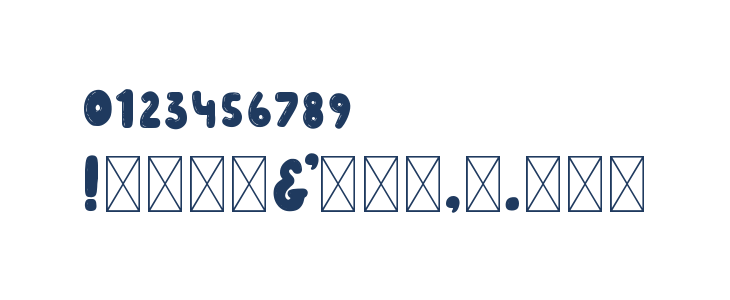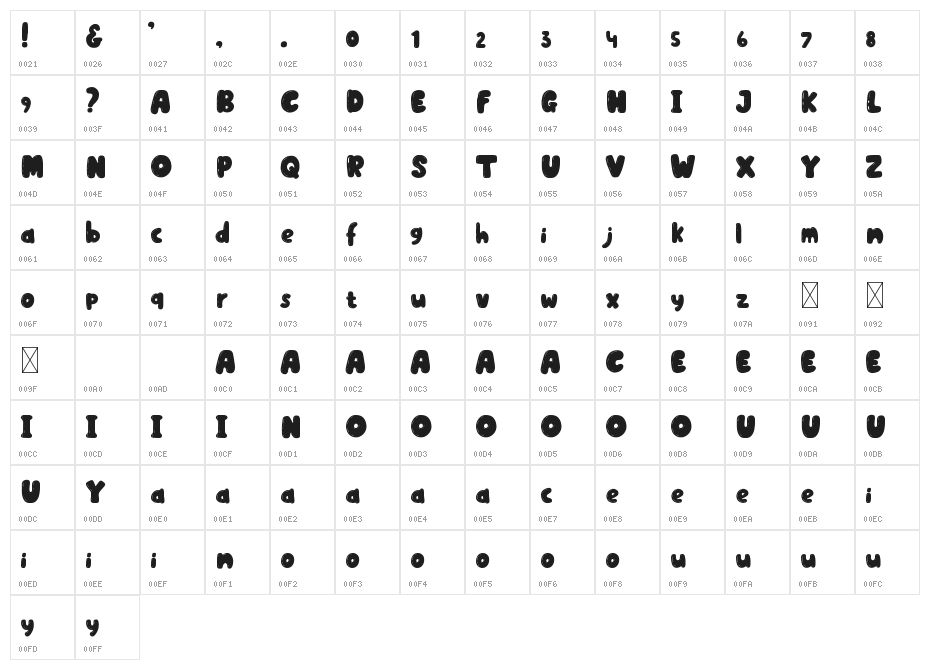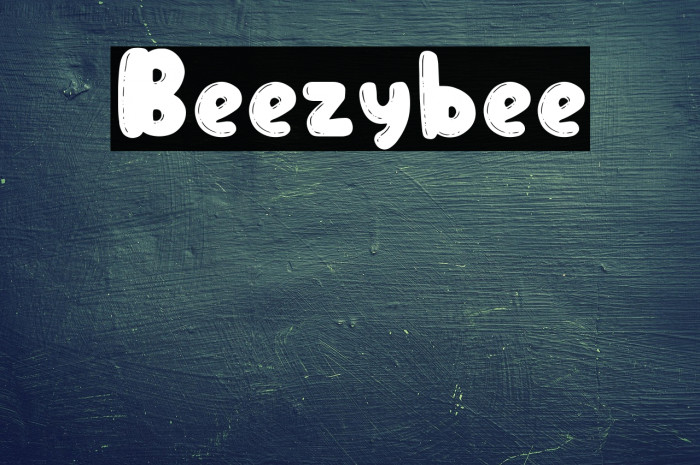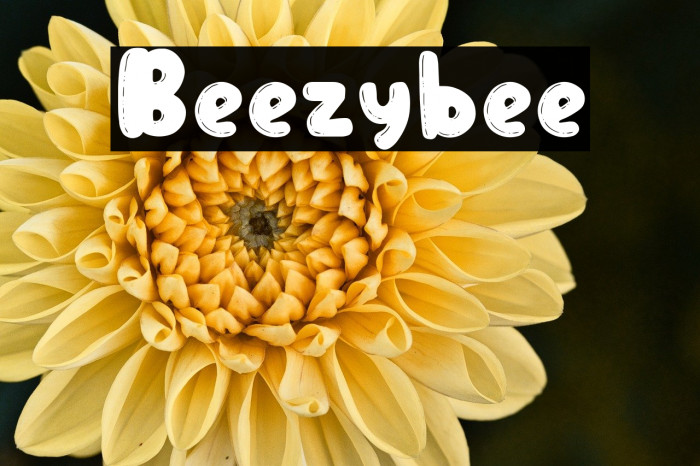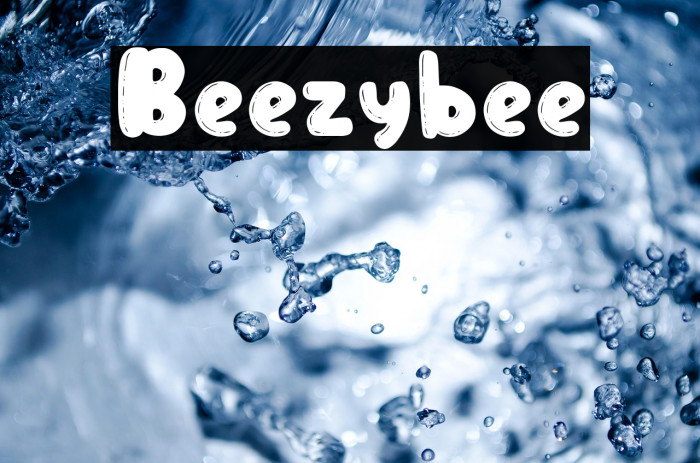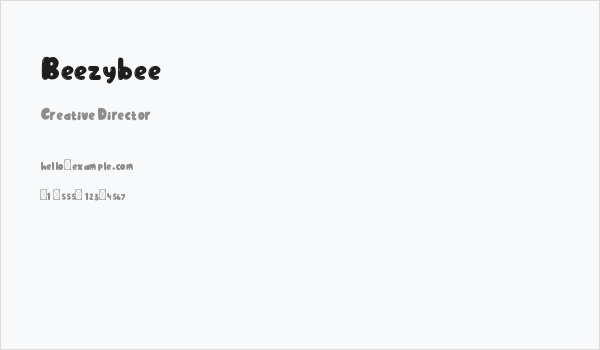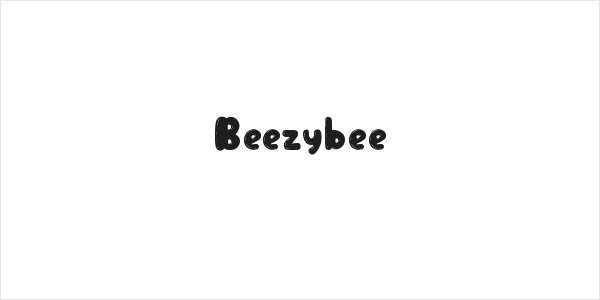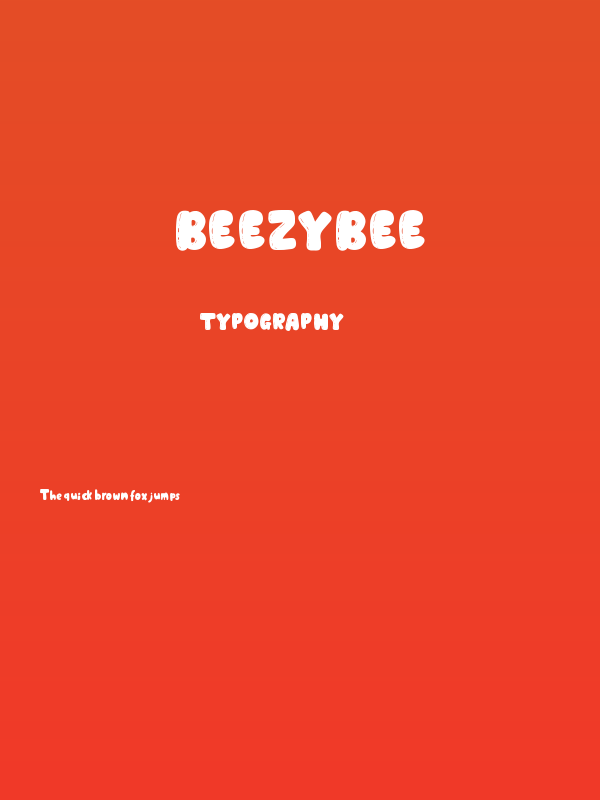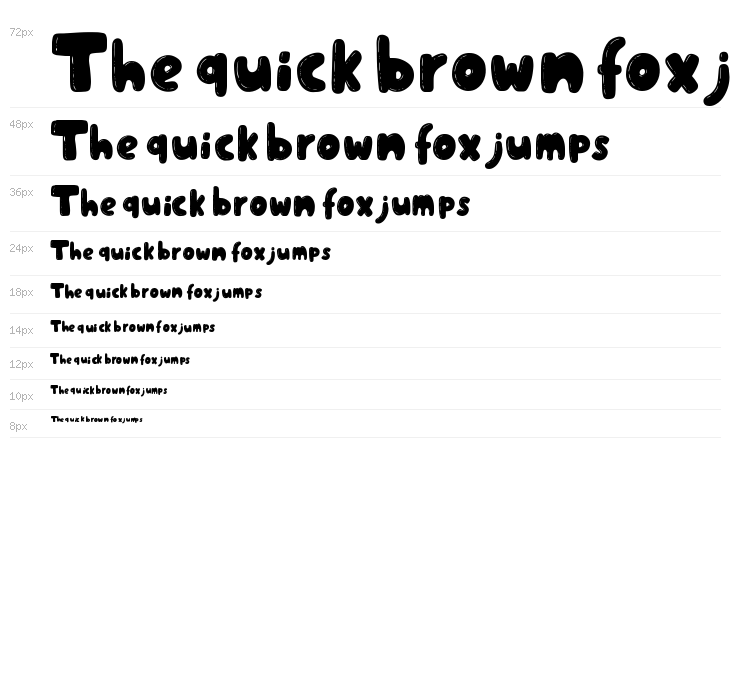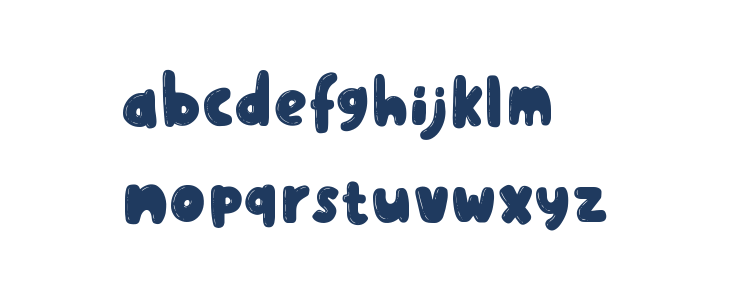
Beezybee Font
Beezybee Description
This playful and bold font features thick, rounded characters with a bubbly appearance. The strokes are consistent in width, giving it a uniform look, while the rounded edges add a friendly and approachable feel. The font is highly legible, making it suitable for various display purposes. The characters are closely spaced, enhancing its compact and cohesive style. Its whimsical nature makes it ideal for projects that require a fun and lively touch, such as children's books, posters, or branding for playful products.
Overall StylePlayful
Proposed ProjectsIdeal for children's books, playful branding, posters, and creative projects.